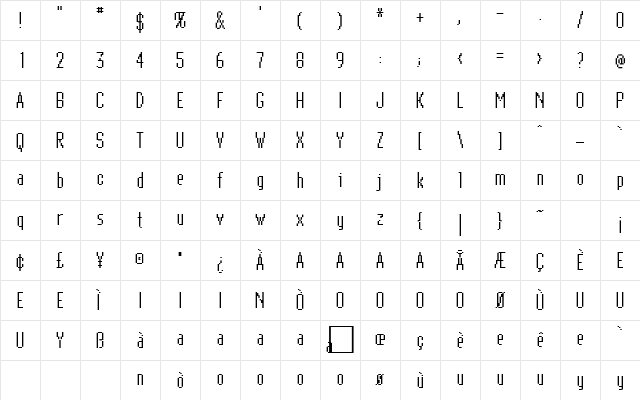
Bitmap Elite Regular
Design Context for Bitmap Elite Typeface
Bitmap Elite celebrates the constraints of early digital type, turning pixel geometry into a distinctive and immediately recognisable style.
Well-suited to indie game interfaces, retro computing aesthetics, and pixel art-adjacent design work.